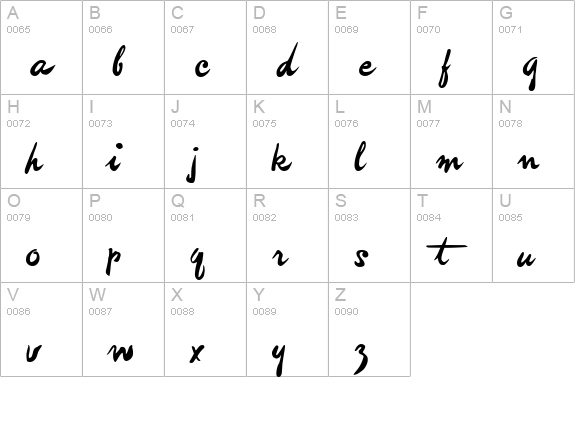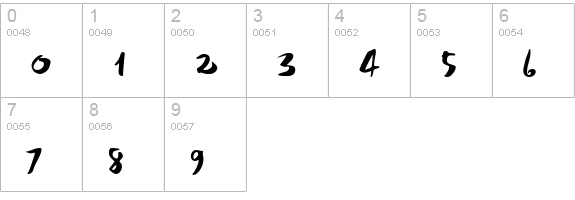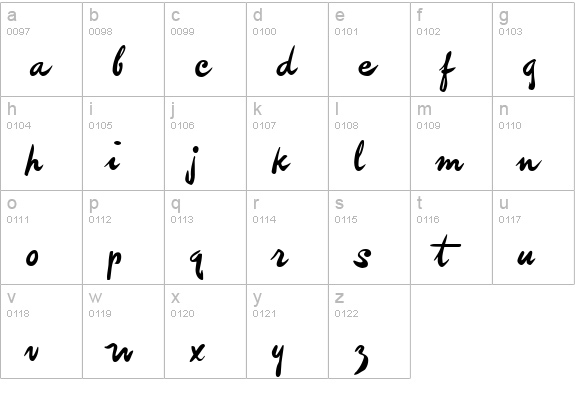
imitation Font Details
Imitation Font is a stunning typeface that beautifully imitates the look of handwritten text, adding a touch of elegance and sophistication to your designs. This font exudes a sense of creativity and charm, making it perfect for a wide range of projects, from invitations and greeting cards to branding and packaging. The flowing lines and intricate details of Imitation Font create a unique and eye-catching aesthetic that will surely capture the attention of your audience. Whether you're looking to add a personal touch to your work or simply want to stand out from the crowd, this font is the perfect choice. Best of all, Imitation Font is completely free to download at FontsMarket.com, making it accessible to everyone who wants to add a touch of flair to their designs. Don't miss out on this exquisite typeface that will elevate your projects to new heights of creativity and style. Download Imitation Font today and let your imagination soar!